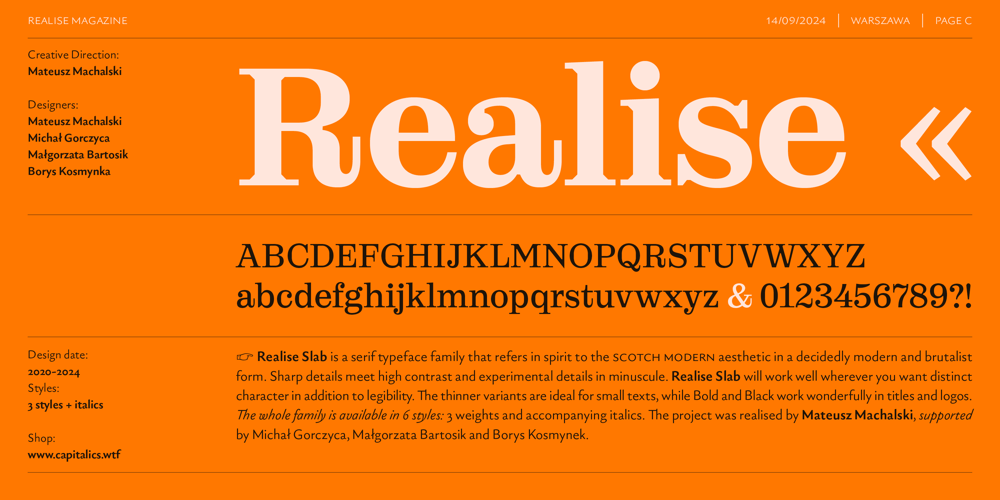
Realise Slab Font Family was designed by Mateusz Machalski and published by Machalski. Realise Slab contains 6 styles and family package options. Realise Slab is a serif typeface family that refers in spirit to the Scotch Modern aesthetic in a decidedly modern and brutalist form. Sharp details meet high contrast and experimental details in minuscule. Realise Slab will work well wherever you want distinct character in addition to legibility. The thinner variants are ideal for small texts, while Bold and Black work wonderfully in titles and logos. The whole family is available in 6 styles: 3 weights and accompanying italics. The project was realised by Mateusz Machalski, supported by Michał Gorczyca, Małgorzata Bartosik and Borys Kosmynek.